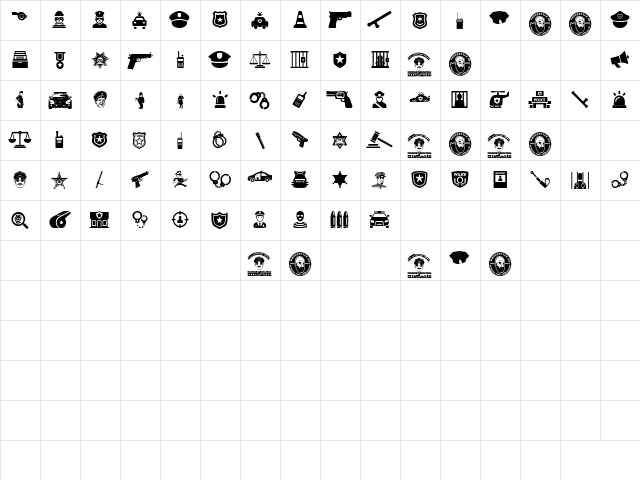
Police Department Regular
| Designer | Woodcutter Manero |
Design Context for Police Department Typeface
Police Department is a composed and adaptable typeface that performs quietly and consistently across a wide range of design contexts.